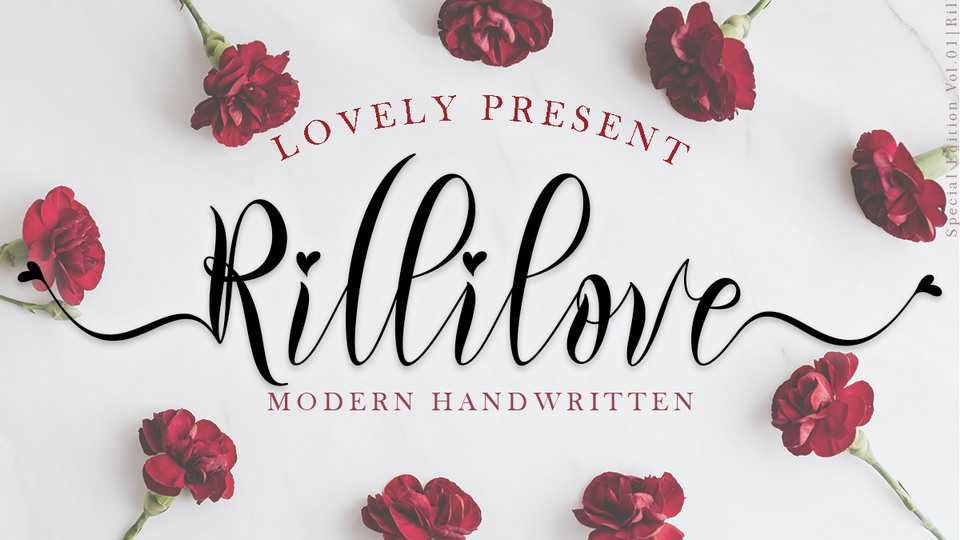
Download Rillilove font, a very beautiful, refined, elegant, and high-quality typeface made with great love. Rillilove can make your work more pretty and romantic.